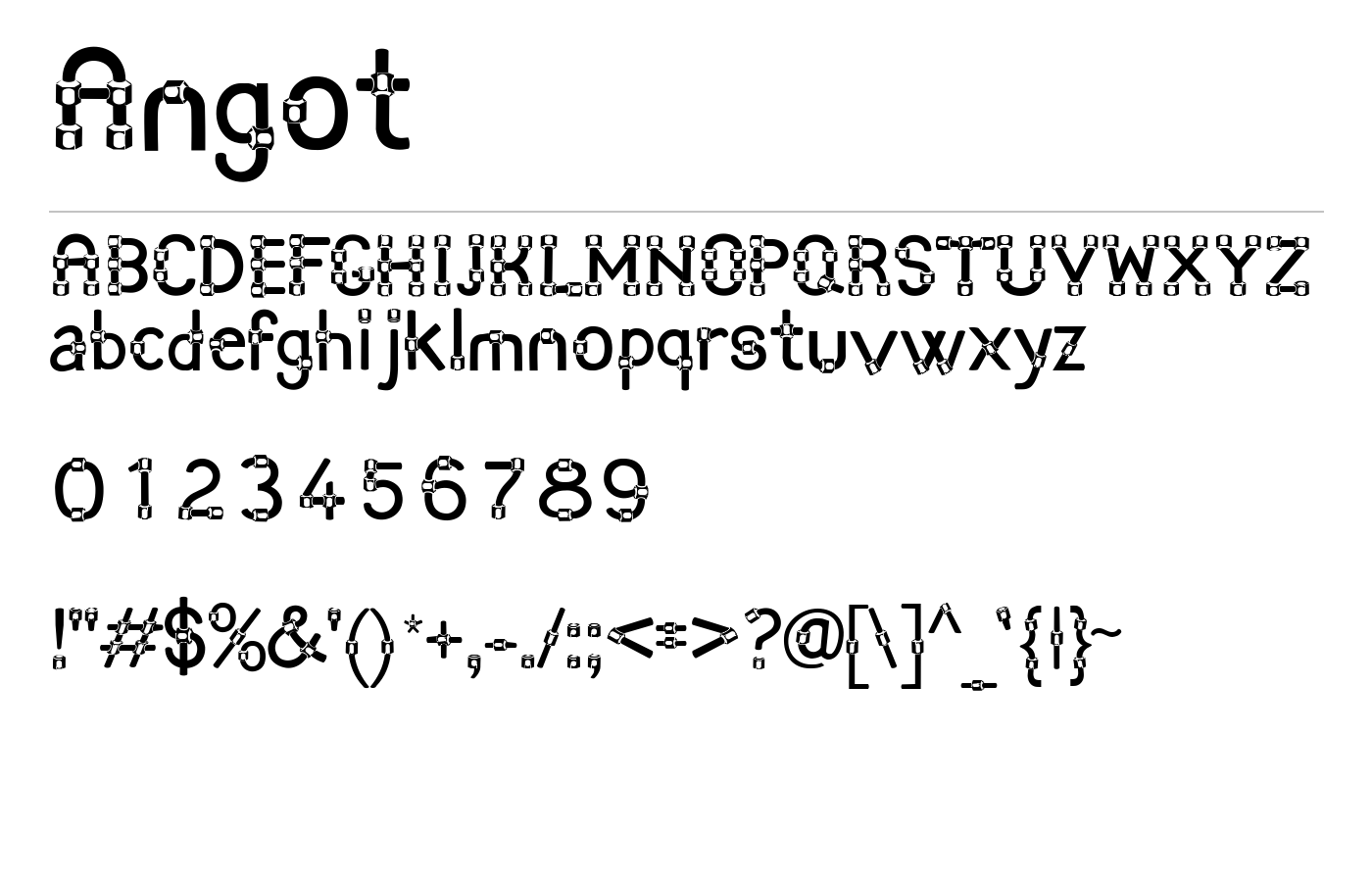
Angot is a modern sans serif font with a unique, mechanical twist, featuring bold strokes combined with intricate, chain-like decorative details. Its clean, geometric shapes and moderate x-height give it a sturdy yet approachable feel, making it ideal for eye-catching logos, futuristic branding, and distinctive headlines where a contemporary and industrial vibe is desired. This font works best when you want to blend modern simplicity with a touch of creative complexity.
Angot Font
About Angot Font